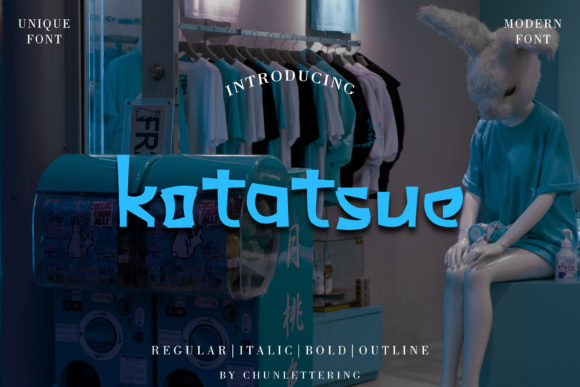
Prepare to be mesmerized by Kotatsue Font, a captivating display font that exudes creativity and originality with its Japanese-inspired charm. Unleash your inner artist and let your designs radiate with a touch of the Orient. Whether you're a seasoned designer or just starting, Kotatsue Font is your ultimate creative companion, ready to elevate your projects to new heights.
Dive into a world of limitless possibilities with Kotatsue Font, the perfect choice for a wide range of design endeavors. Whether you're crafting personalized greeting cards, creating captivating digital designs, or delivering impactful presentations, Kotatsue Font will add a touch of elegance and sophistication to every project. Its versatility knows no bounds, making it an indispensable tool for any creative soul.
Immerse yourself in the beauty of Kotatsue Font, meticulously crafted to offer a seamless writing experience. Each character dances across the page with grace and fluidity, captivating your audience with its enchanting charm. Let your words flow effortlessly, leaving a trail of artistic expression that will leave a lasting impression.
With Kotatsue Font, you hold the key to unlocking a world of creativity, where your imagination takes center stage. Its Japanese-inspired design adds a touch of mystique and allure, transforming ordinary words into captivating works of art. Embrace the power of Kotatsue Font and watch as your designs come alive, captivating your audience with their beauty and originality.
Seize the opportunity to make a bold statement with Kotatsue Font, the font that embodies individuality and creativity. Its unique style demands attention, ensuring that your designs stand out from the crowd. Elevate your projects to new heights and leave an unforgettable mark on your audience with Kotatsue Font.